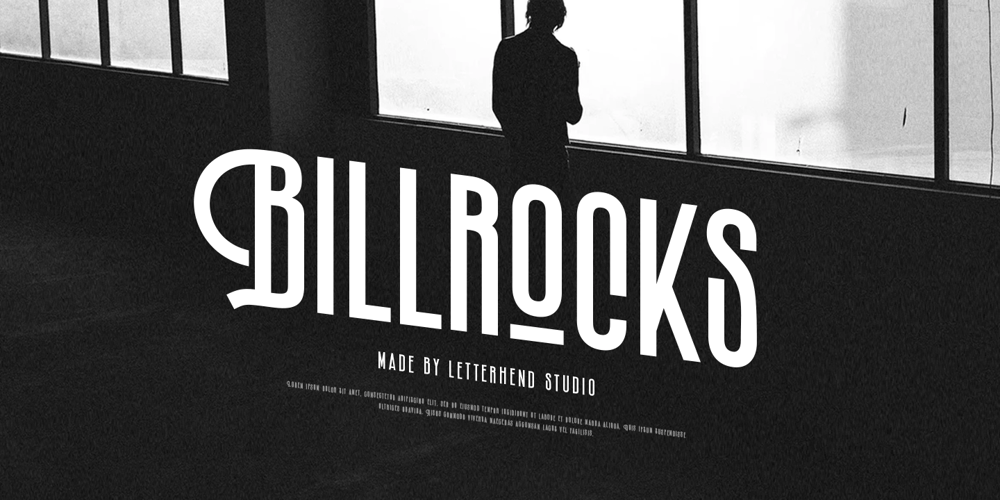
Billrocks Font Family was designed by Hendry Juanda and published by Letterhend. Billrocks contains 1 styles and family package options. Introducing, Billrocks – A sans serif display typeface. The condensed style make this font looks great and standout for tittle, headline, logo, etc. Perfectly to be applied to the other various formal forms such as invitations, labels, logos, magazines, books, greeting / wedding cards, packaging, fashion, make up, stationery, novels, labels or any type of advertising purpose.Features : uppercase & lowercase numbers and punctuation multilingual alternates & ligatures PUA encoded We highly recommend using a program that supports OpenType features and Glyphs panels like many of Adobe apps and Corel Draw, so you can see and access all Glyph variations.